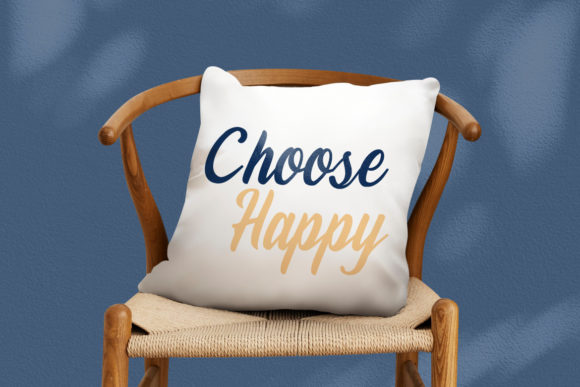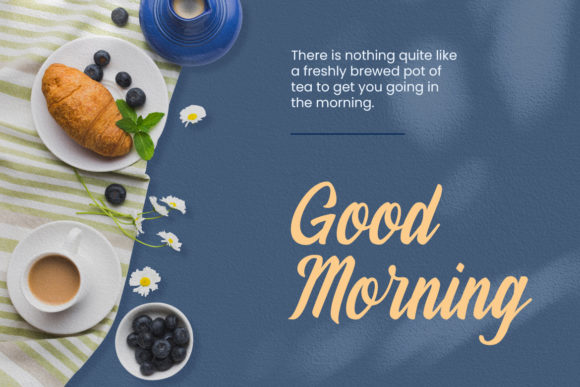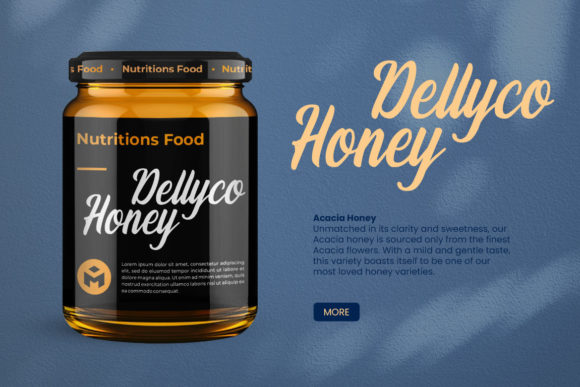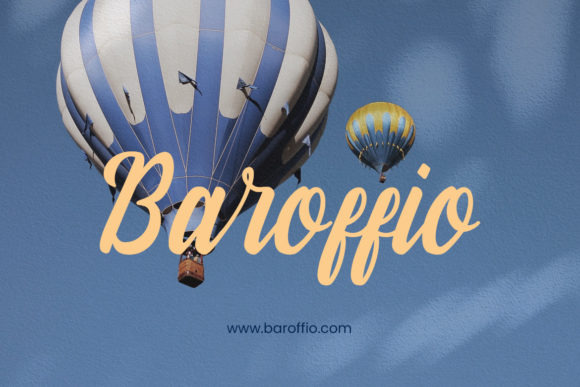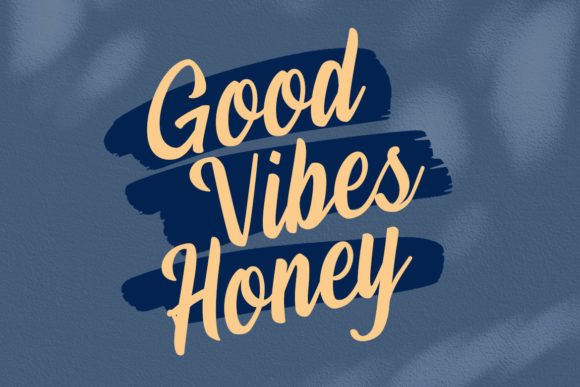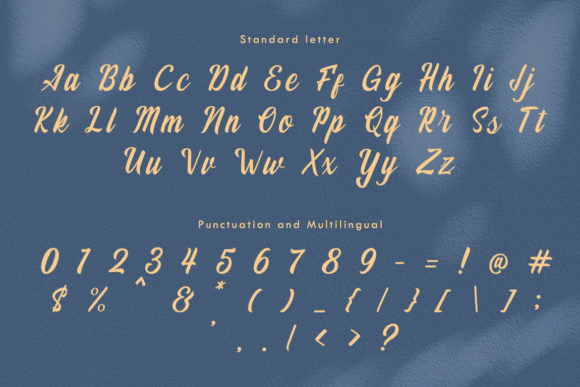
Introduction to Dellyco Font
Dellyco is a lovely and delicate script font that exudes elegance and class.
This font was particularly crafted for those who need a beautiful and refreshing look to their designs .
Key Features of Dellyco Font
Why Choose Dellyco Font?
Dellyco Font offers exceptional quality and versatility, making it a valuable addition to your design toolkit. Whether you’re creating for personal projects or commercial use, Dellyco Font delivers professional results.